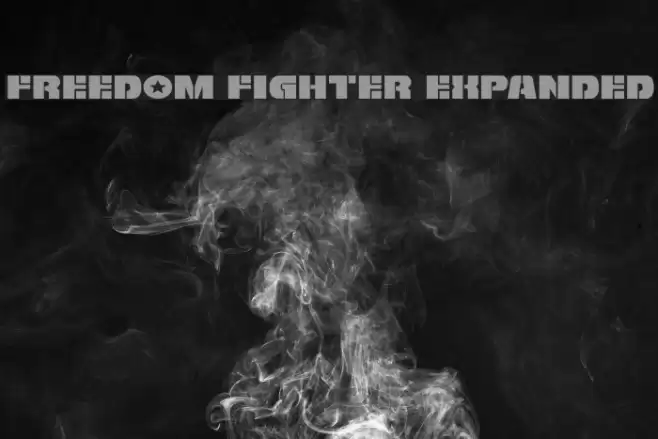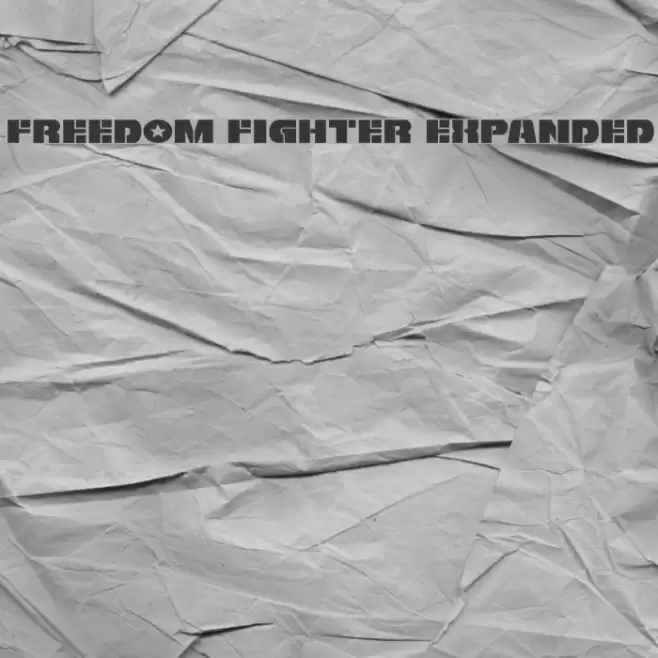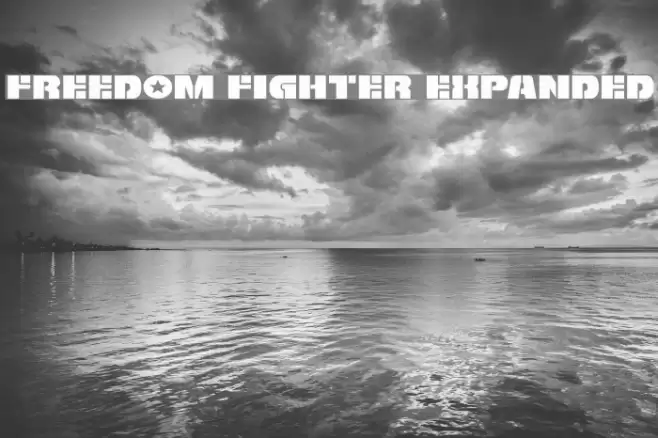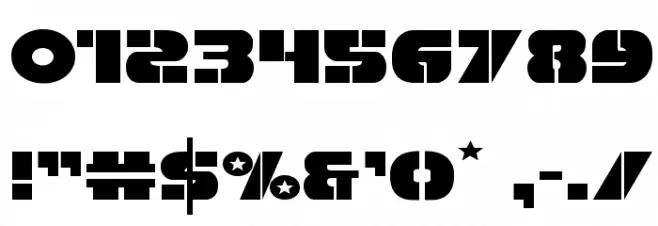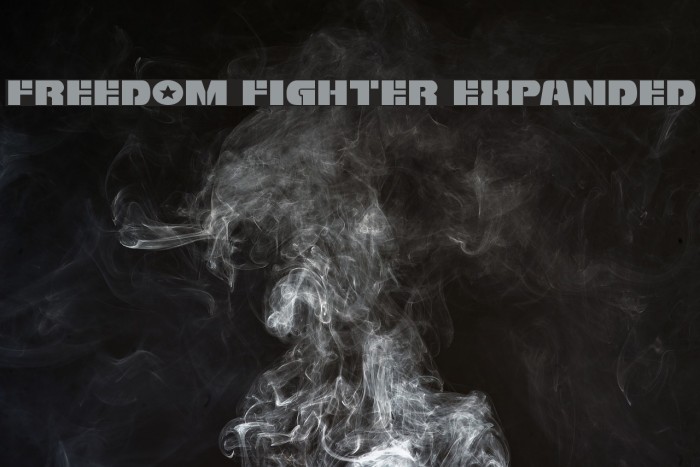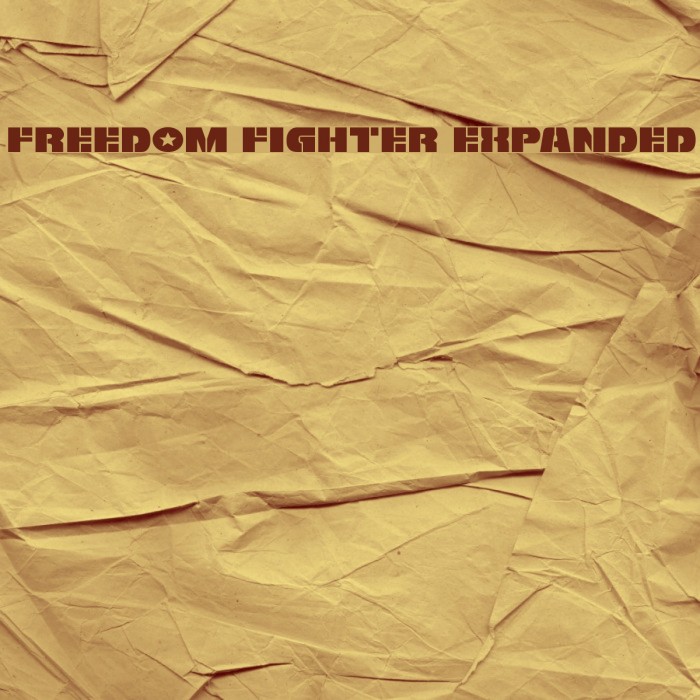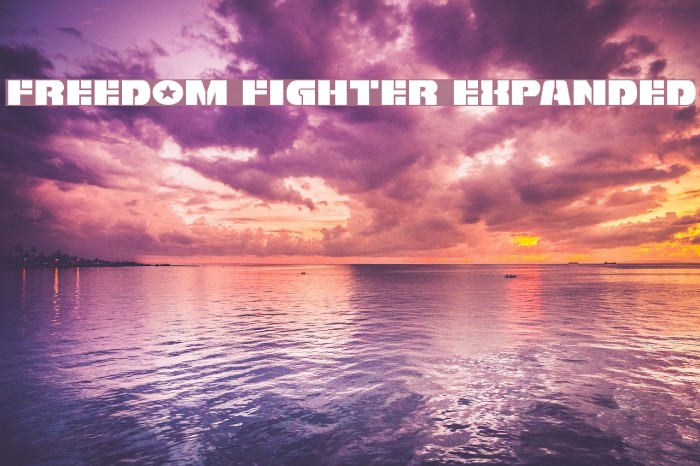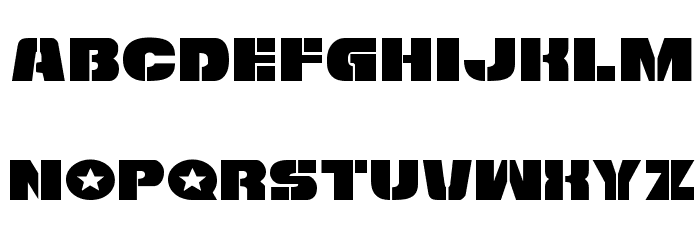
Freedom Fighter Expanded Font
Freedom Fighter Expanded Description
This font features a bold, geometric design with a strong presence. The characters are constructed with thick, block-like shapes, giving them a powerful and assertive appearance. The use of negative space within the letters adds a unique and modern touch, while the expanded width enhances its impact. The font includes both uppercase and lowercase letters, numerals, and a variety of special characters, each maintaining the same bold and structured style. The overall design is reminiscent of stencil or military-inspired typography, making it suitable for projects that require a strong and commanding visual element.
A bold, geometric font with a strong, assertive presence and expanded width from Uncategorized fonts.
- Proposed Projects: Ideal for posters, banners, branding, and any design requiring a bold statement.